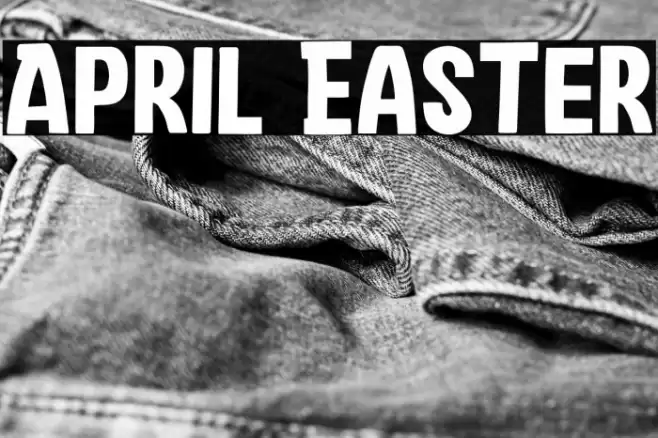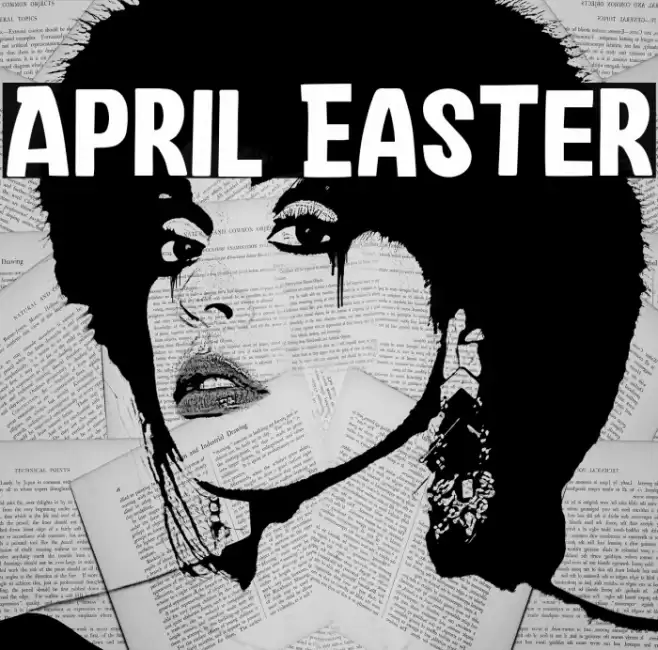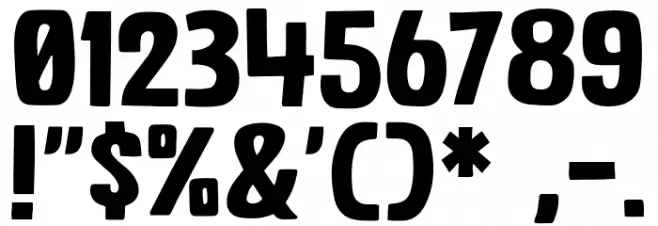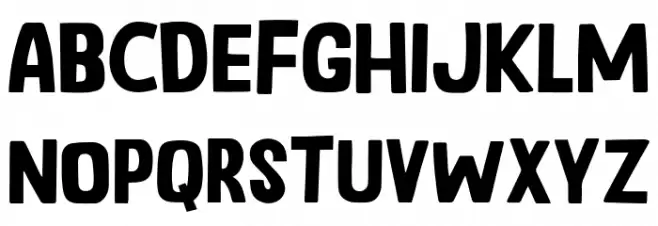
April Easter Font
April Easter Description
This font features bold, playful characters with a slightly irregular and hand-drawn appearance. The uppercase and lowercase letters maintain a consistent weight, contributing to a cohesive look. The numbers and special characters follow the same style, ensuring uniformity across all glyphs. The strokes are thick and rounded, giving the font a friendly and approachable feel. The overall design is reminiscent of a casual, handwritten style, making it suitable for projects that require a personal touch. The spacing between characters is normal, allowing for easy readability while maintaining the font's playful nature.
A bold, playful font with a hand-drawn, friendly appearance from Easter fonts.
- Font: April Easter
- Proposed Projects: Ideal for children's books, playful branding, greeting cards, and casual invitations.
- Overall Style: Playful